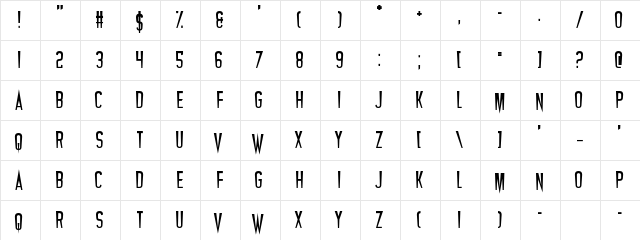
Vampires Regular
Design Context for Vampires Typeface
Vampires is a composed and adaptable typeface that performs quietly and consistently across a wide range of design contexts.